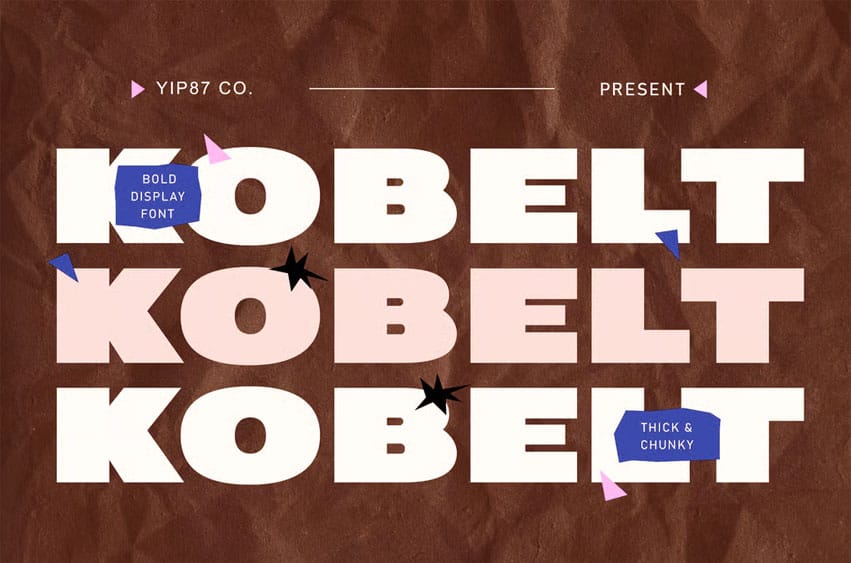
Kobelt Font is a Clean Minimalist Modern Expanded Bold Sans Serif, designed specifically for logos, branding, headers/headlines, game, music, techno, urban, college, race car, and sport branding. Kobelt is impactful and timeless logos and branding materials.